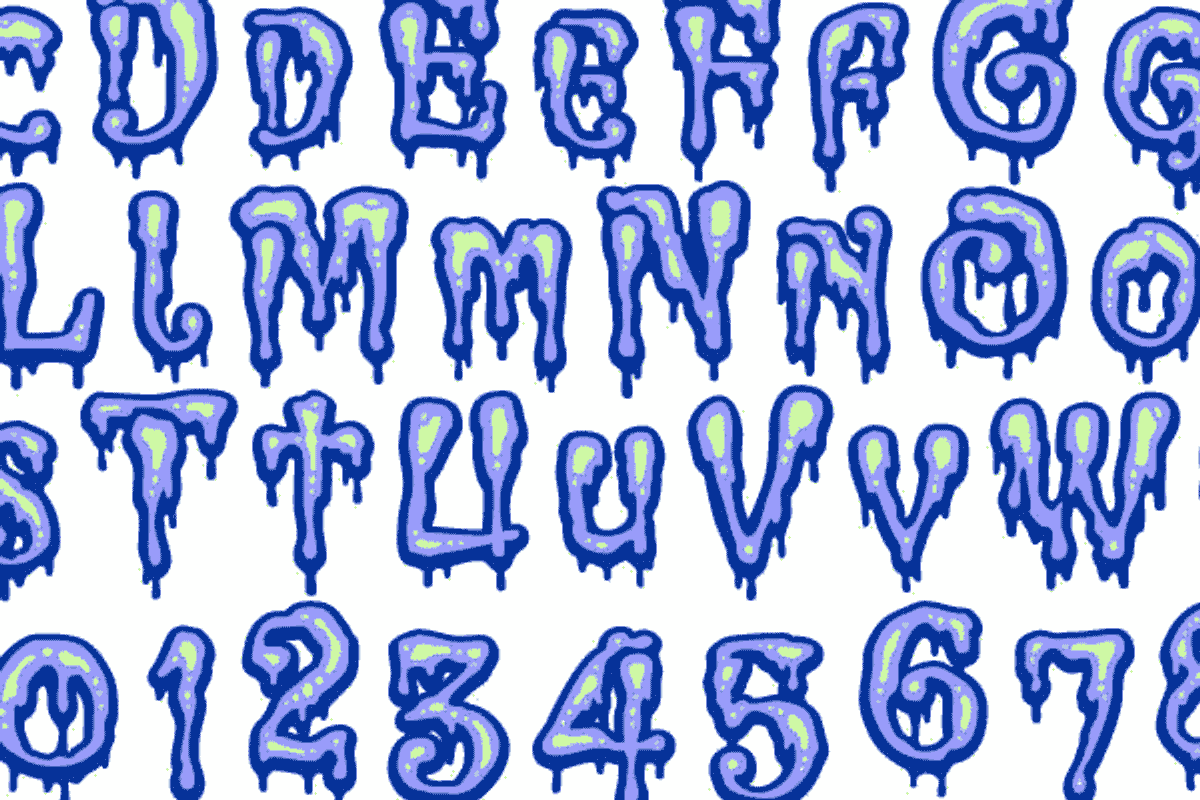
Incy Wincy Spider
Incy Wincy Spider by Comicraft Fonts is a font selected for branding, posters, packaging, typography.
Why Incy Wincy Spider is worth a look
Incy Wincy Spider by Comicraft Fonts fits naturally into Branding, posters, packaging, typography.